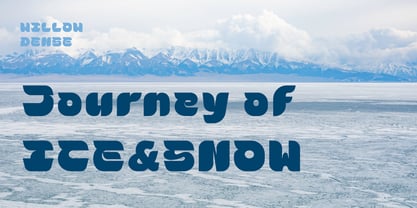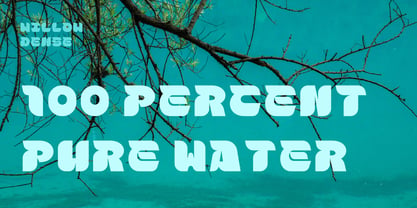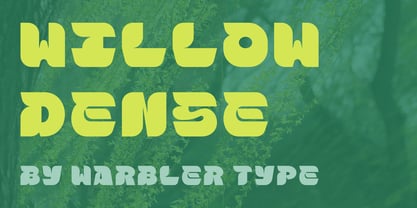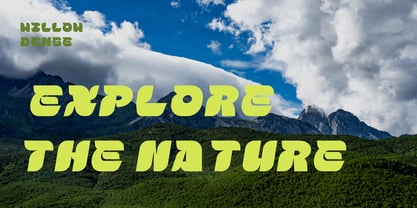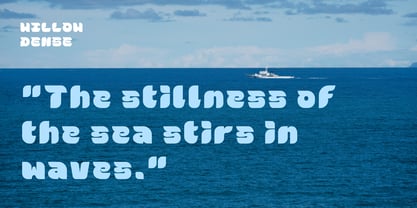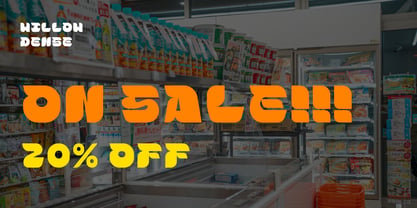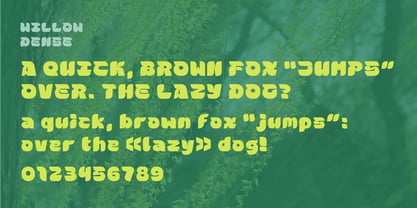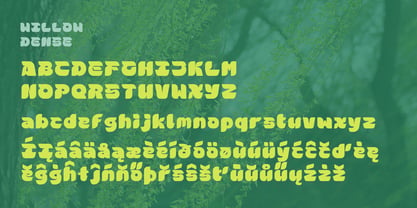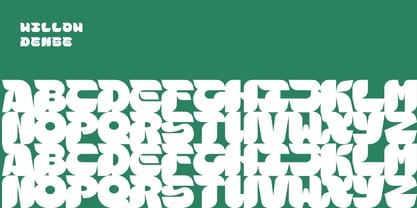
Willowdense
Willowdense is an artistic display typeface that uses extremely thick strokes to create an effect reminiscent of dense willow leaves. Version 1.0 of the font provides over 360 Latin characters, Arabic numerals, and related symbols, supporting the vast majority of Latin-based languages. Uppercase letters and some symbols are monospaced, allowing for more orderly typesetting, while lowercase letters are not monospaced. The font is designed to be highly eye-catching, making it more suitable for headline text, yet it also offers good readability.